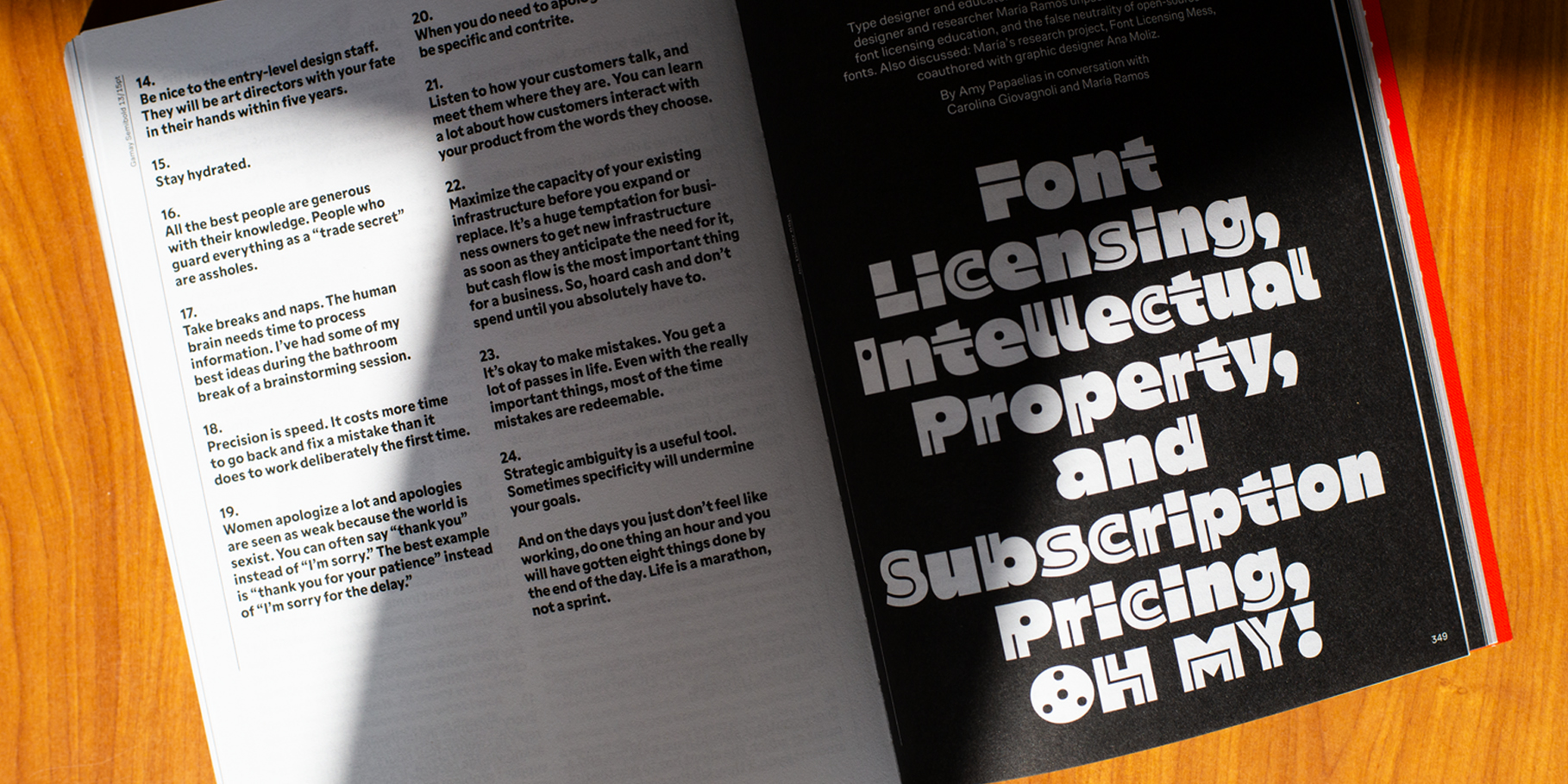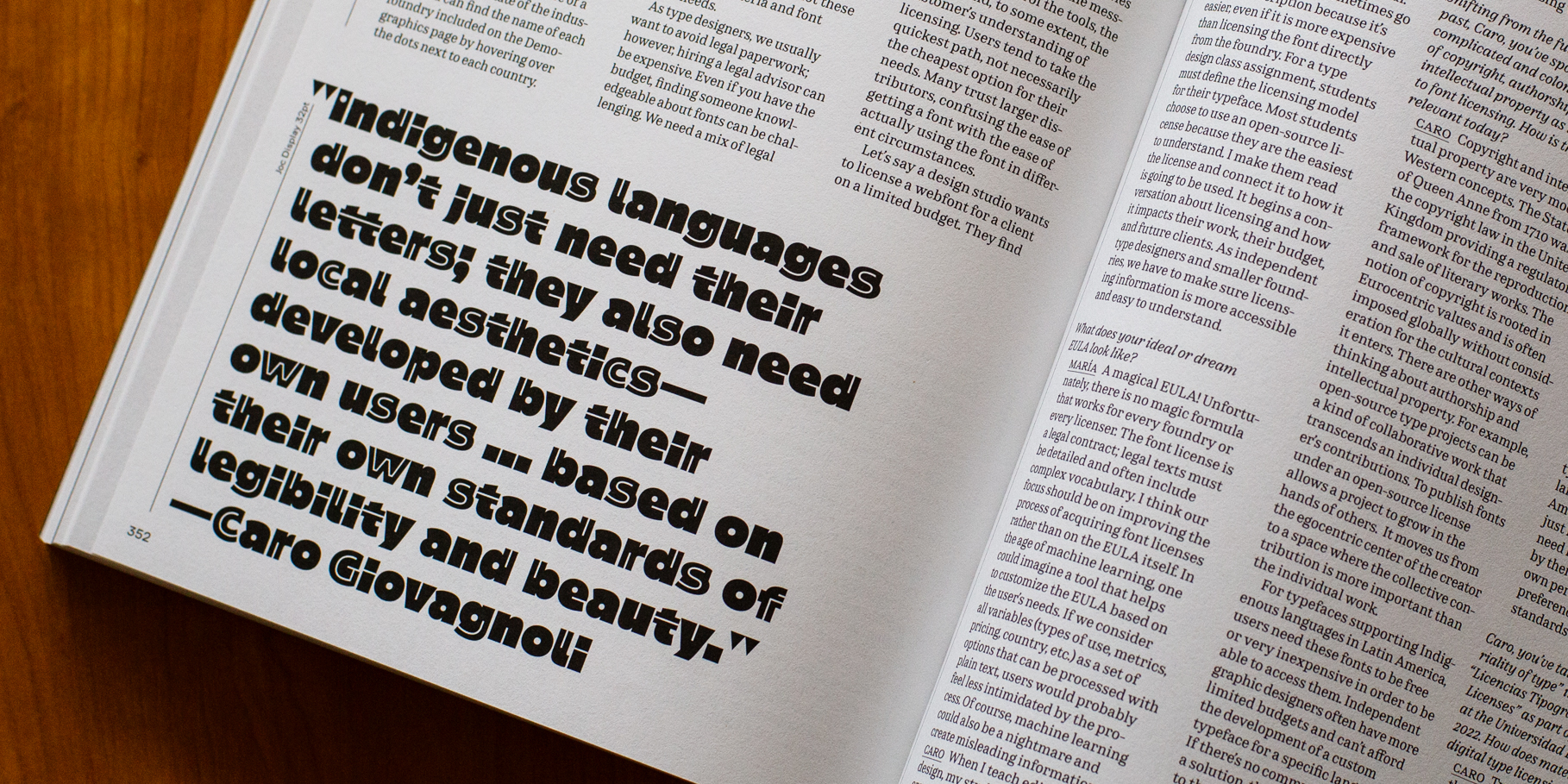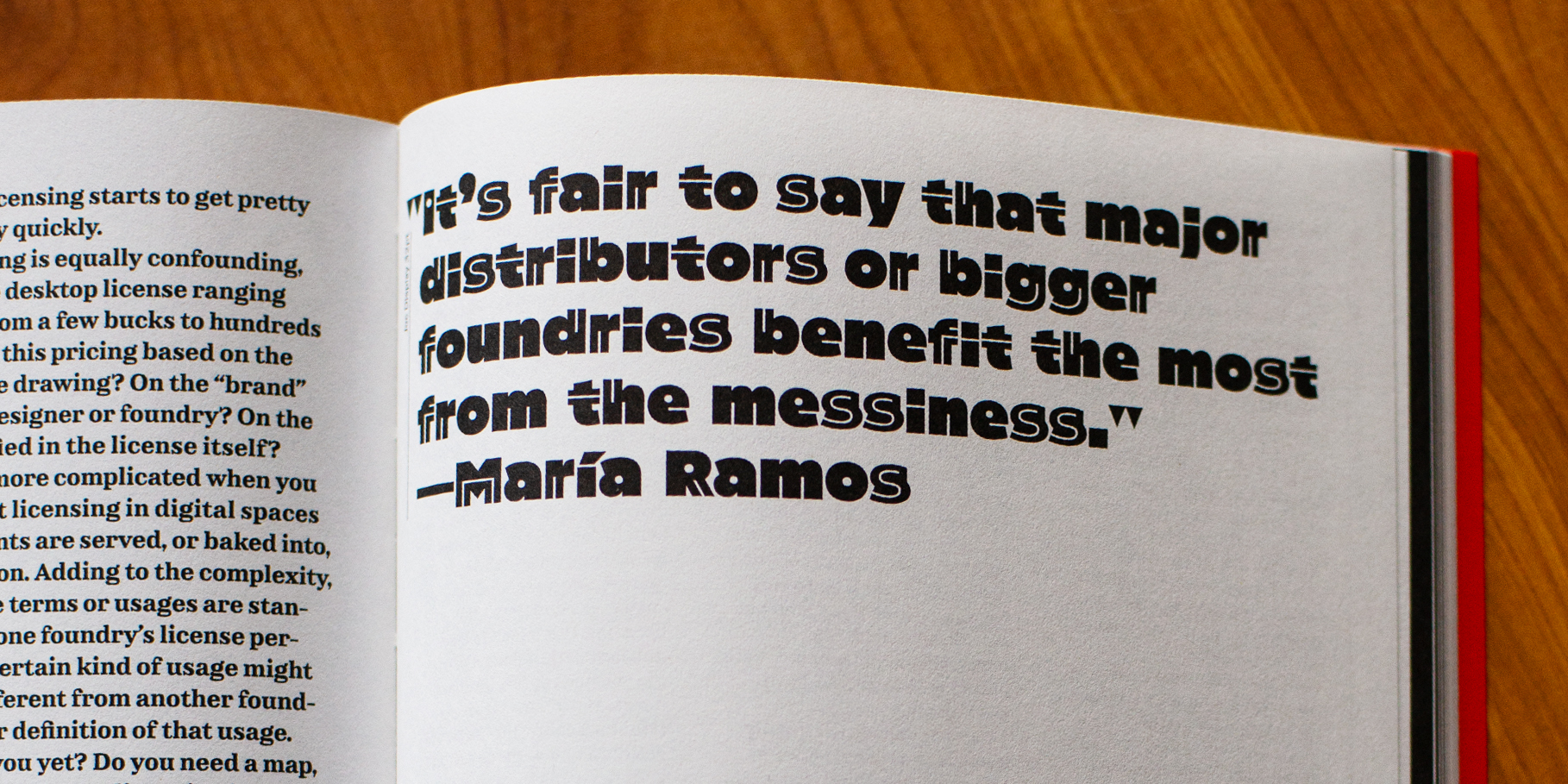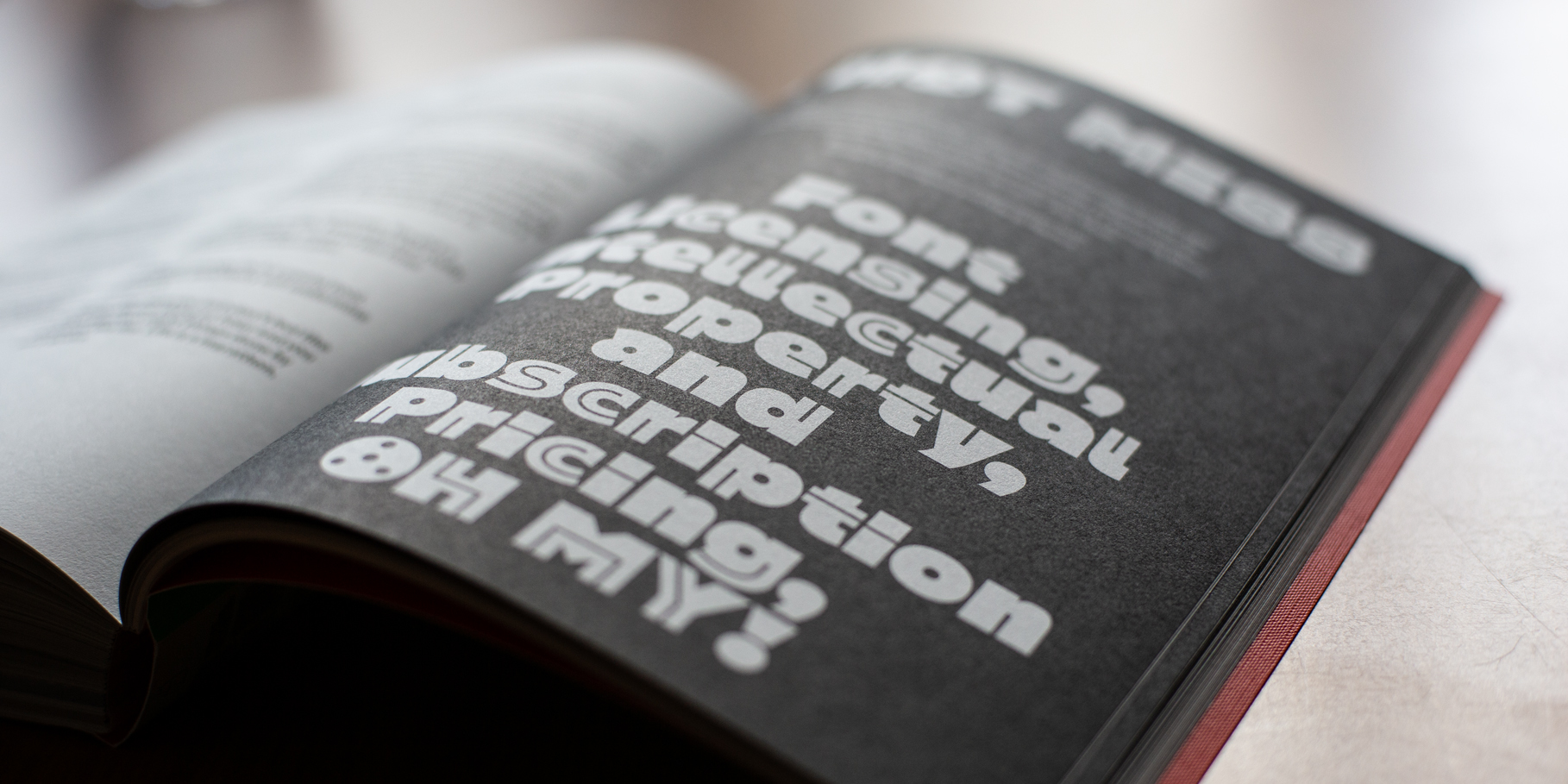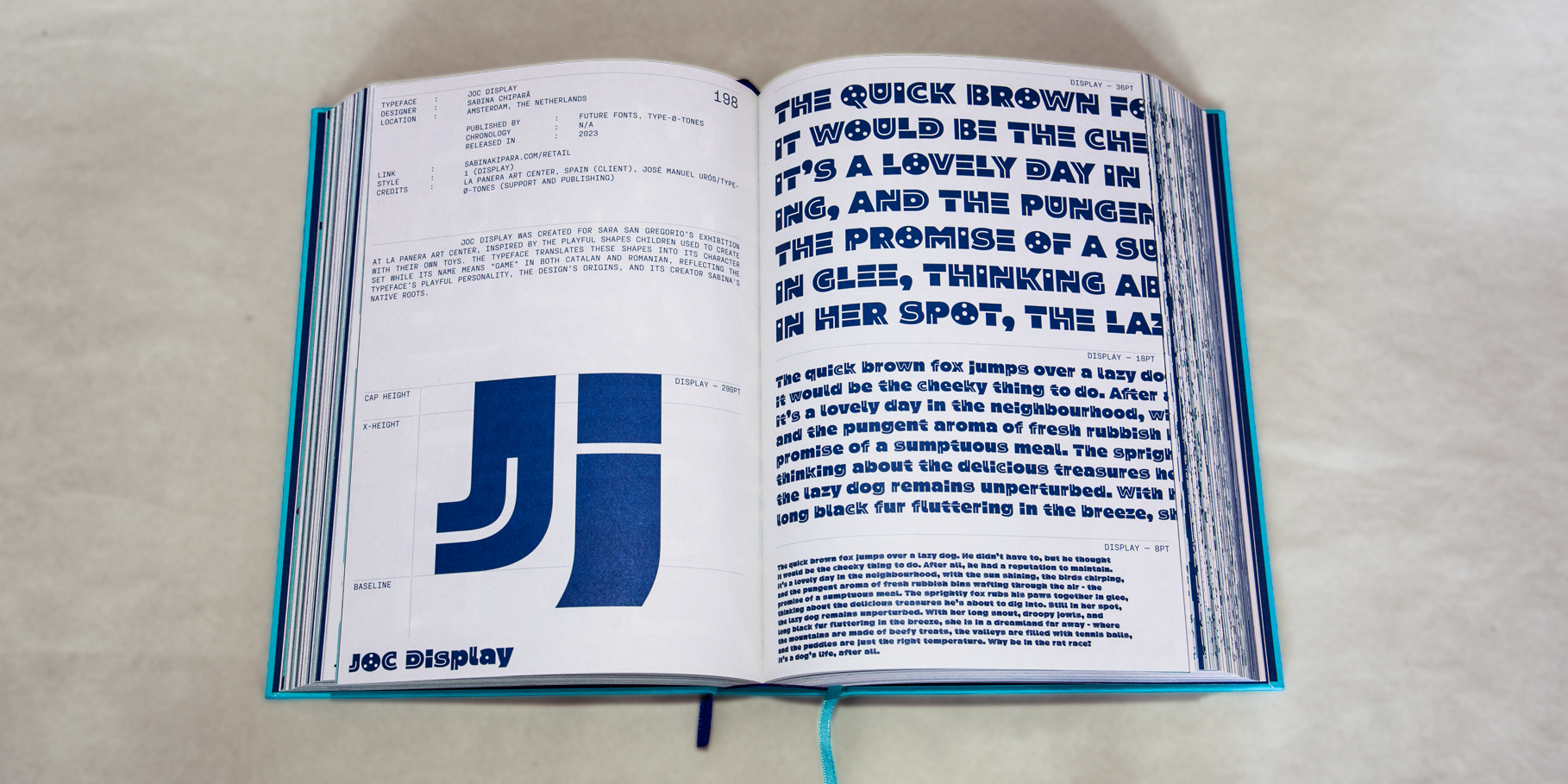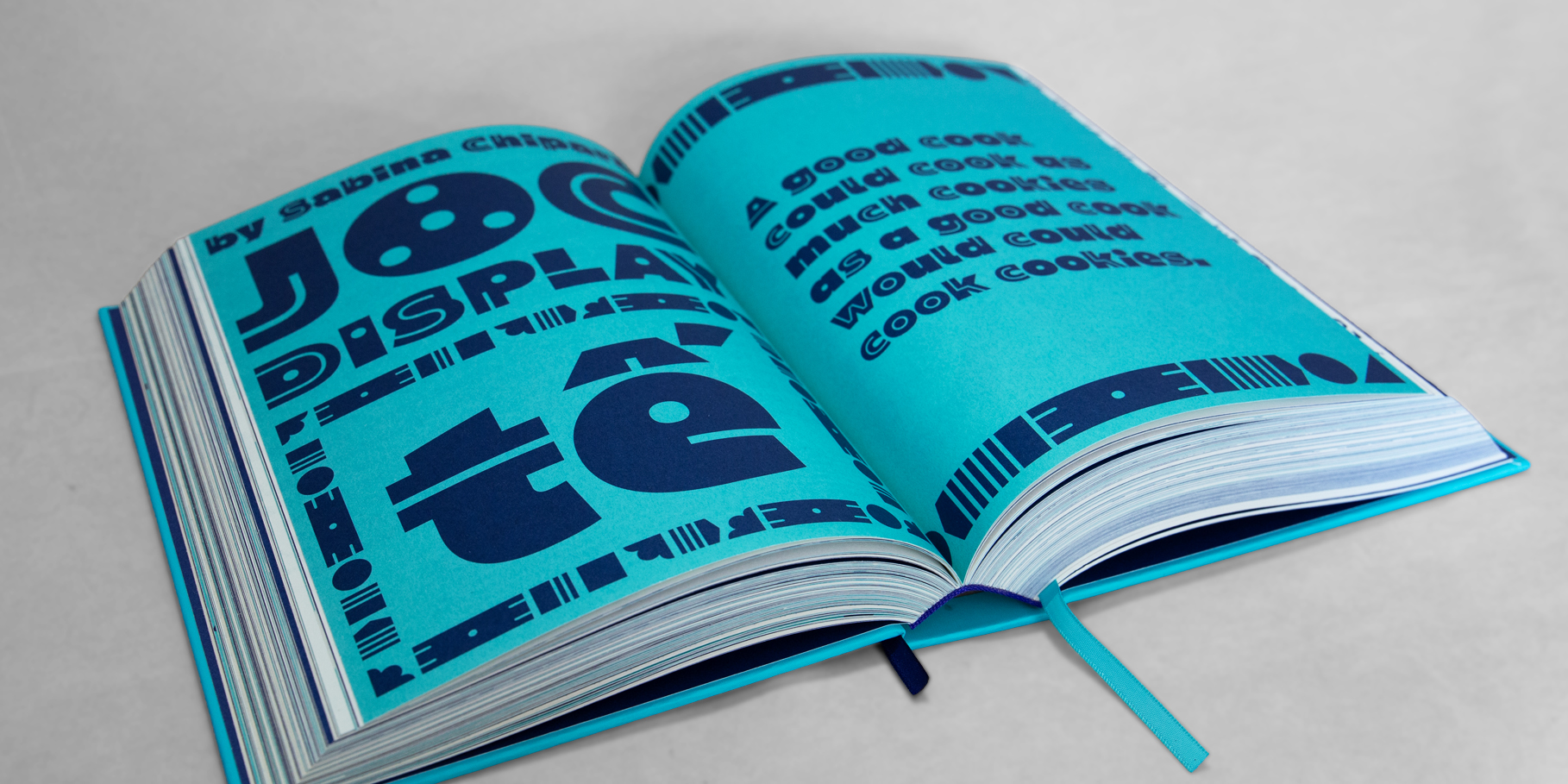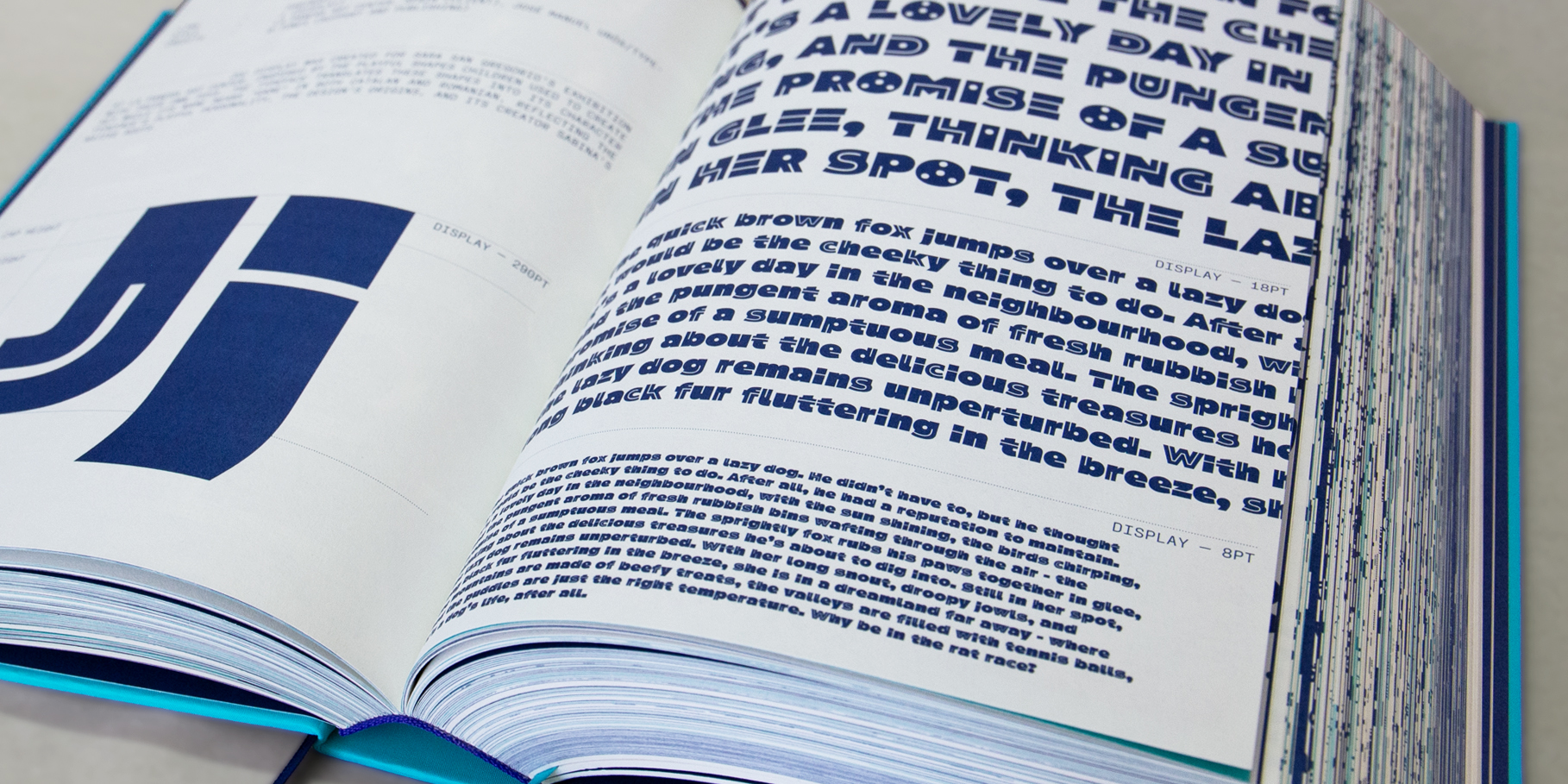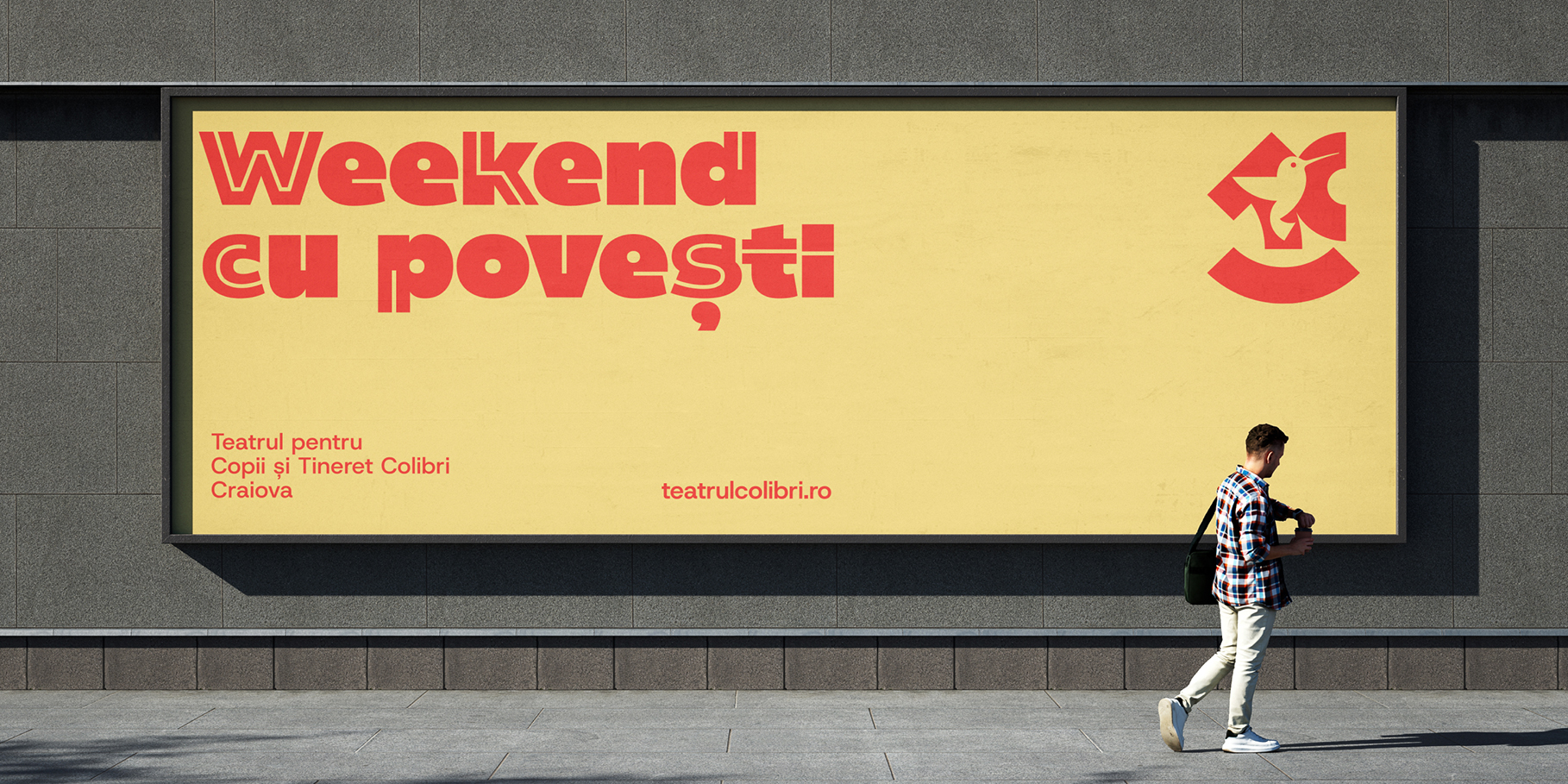
Promotional Postcards by Sabina Chipară, 2024
Display In Use — A Collection of Display Typefaces
Edited and produced by viction workshop ltd, 2025
Identity for Colibri Children and Youth Theatre, Craiova
Design by Daniel & Andrew Design Advisory, Romania 2026
Alphabettes Soup: Feminist Approaches to Type
Edited by Amy Papaelias, graphic design by Tereza Bettinardi, publisher Bikini Books, 2026
Juguetoría Sangregorio at Centre d'Art La Panera
JUGUETORÍA es una factoría de juegos y juguetes fundada por Sara San Gregorio en otoño de 2020 en Medialab Prado como un laboratorio de diseño y fabricación de juguetes, en el que jugamos para diseñar y diseñamos para jugar.
Joc
Sabina Chipară
The first letters of Joc Display typeface were designed to accompany Sara San Gregorio’s exhibition: Juguetoría a l’altura del Joc curated by Helena Ayuso Moli y Anna Roigé Barrull at La Panera Art Center in LLeida, Spain. The exhibition playground encourages children from age 5 to 9 to create their own toys by combining together different shapes. These shapes were the main inspiration for the concept of the letters and have been translated into symbols for the character set.
The name of the typeface itself is a link between the same matching word in Catalan and Romanian – Joc = Game. A description of the personality of the typeface, the place where its’ design was born and Sabina's native roots.